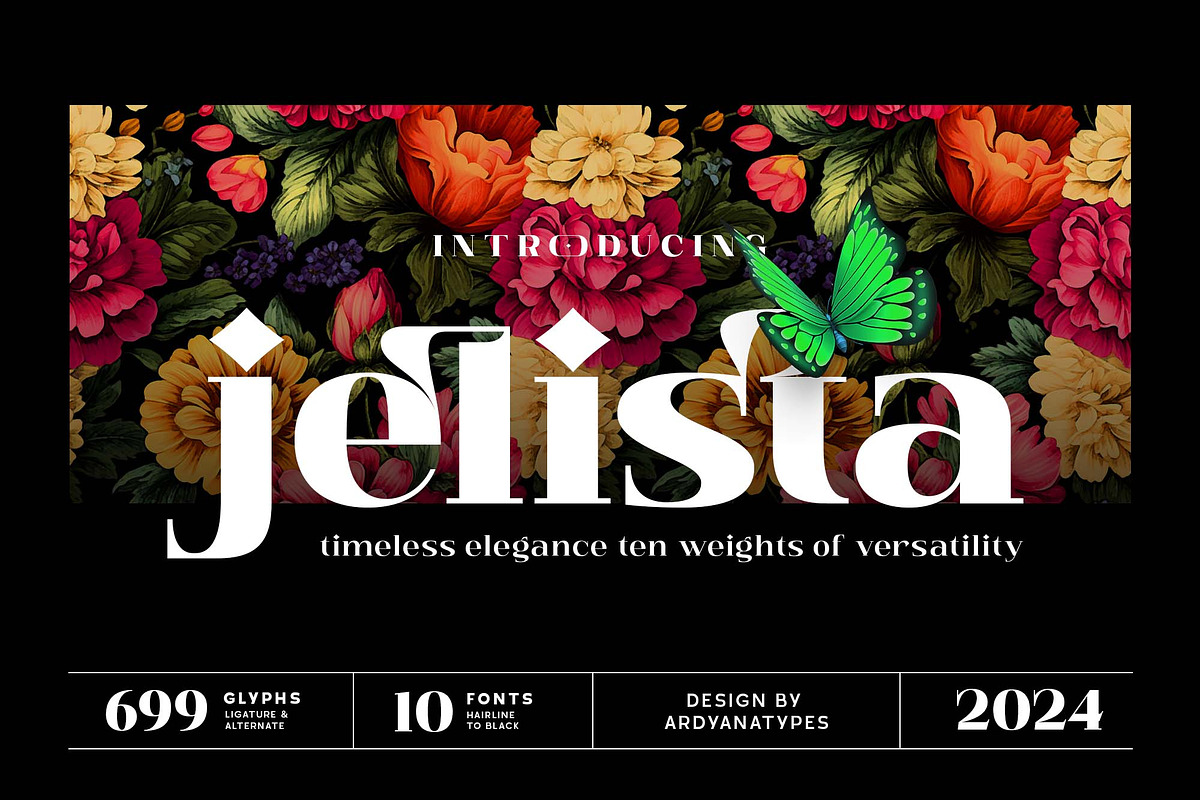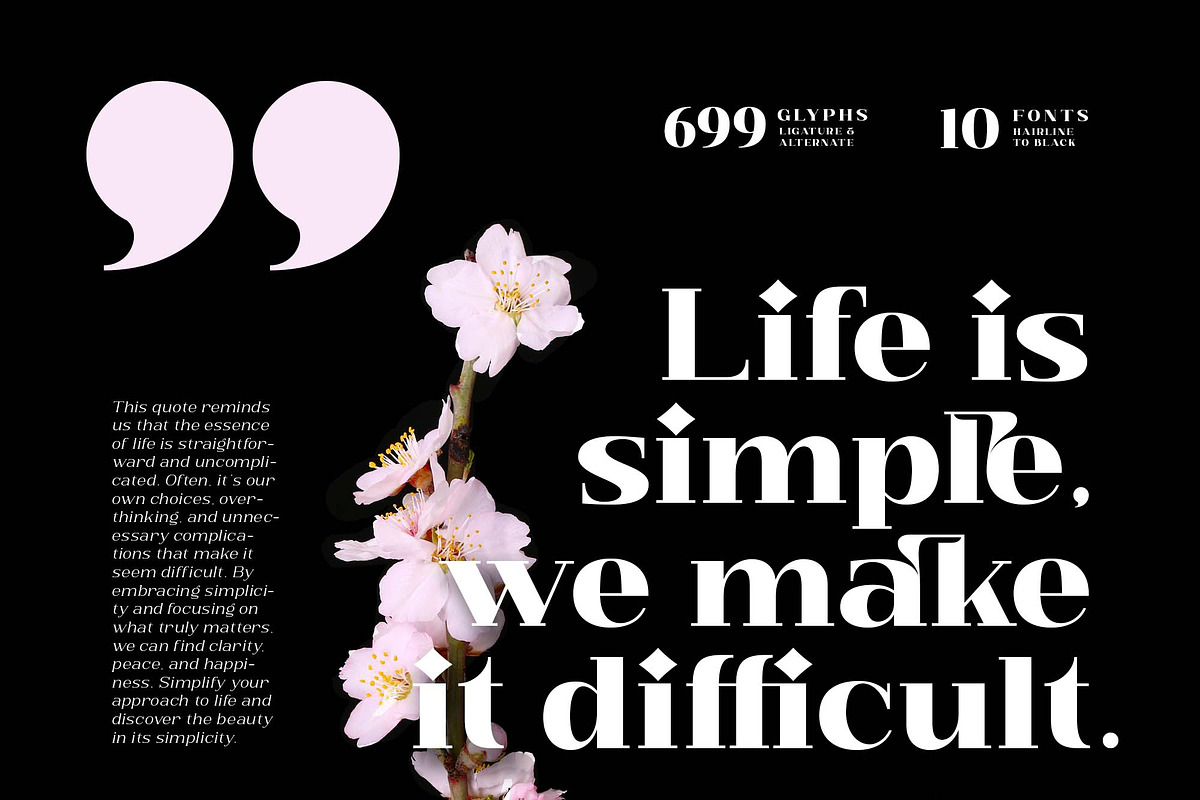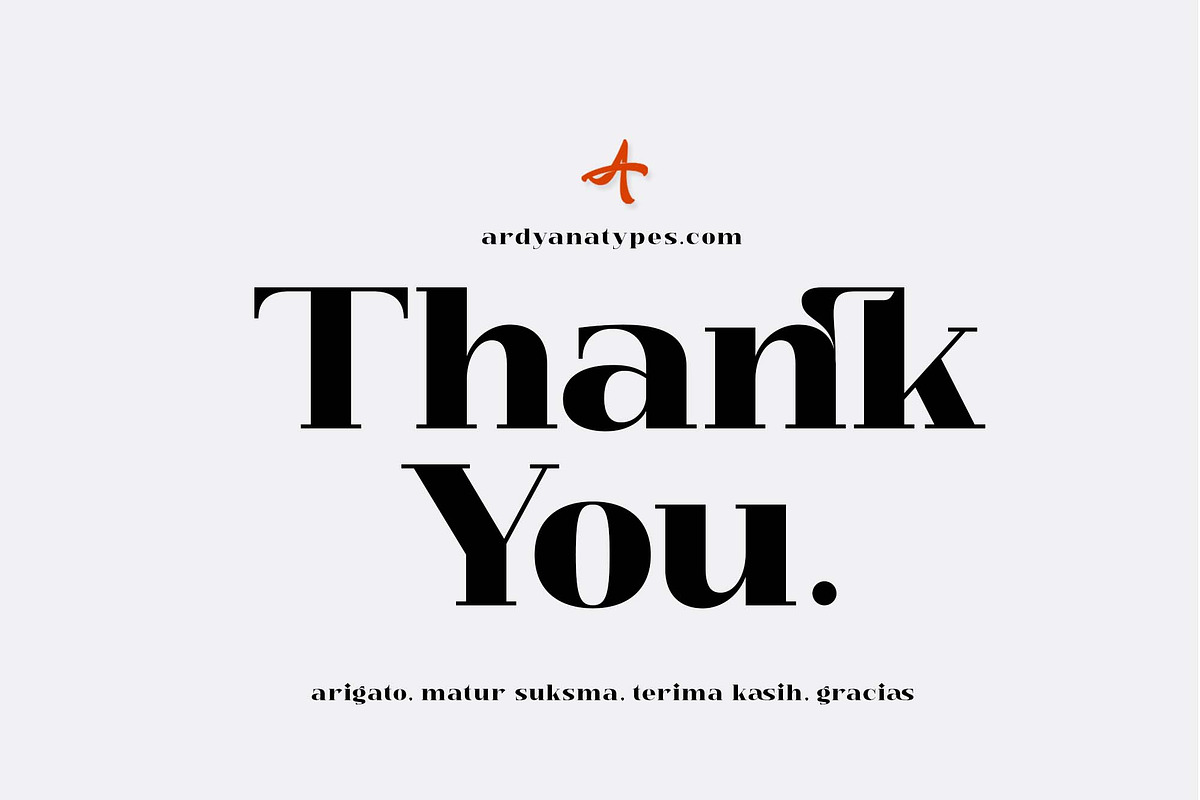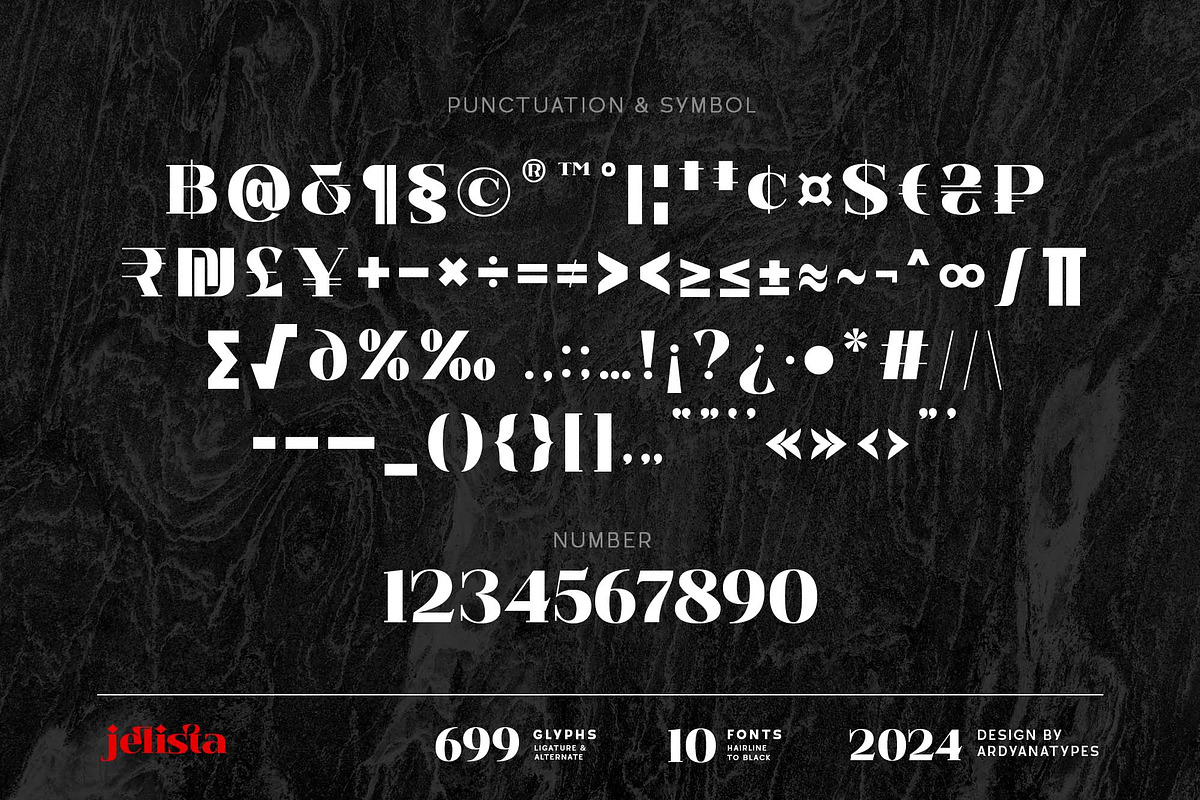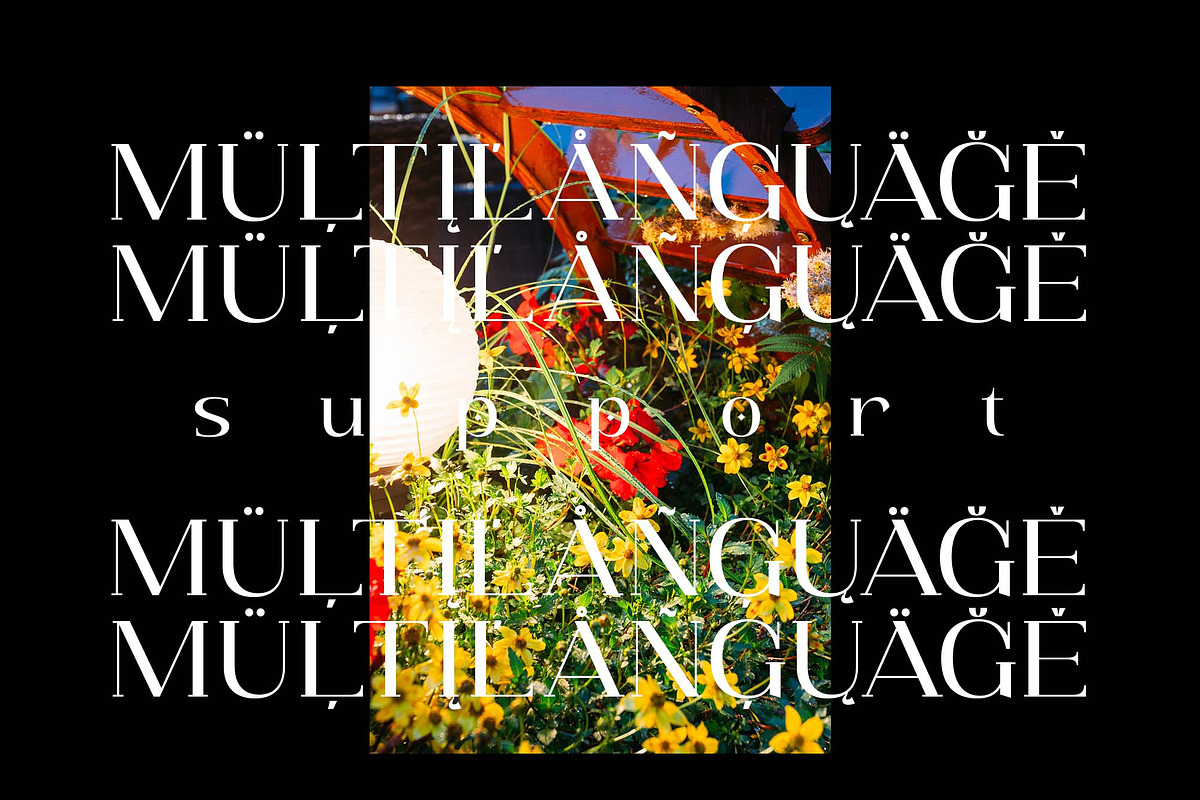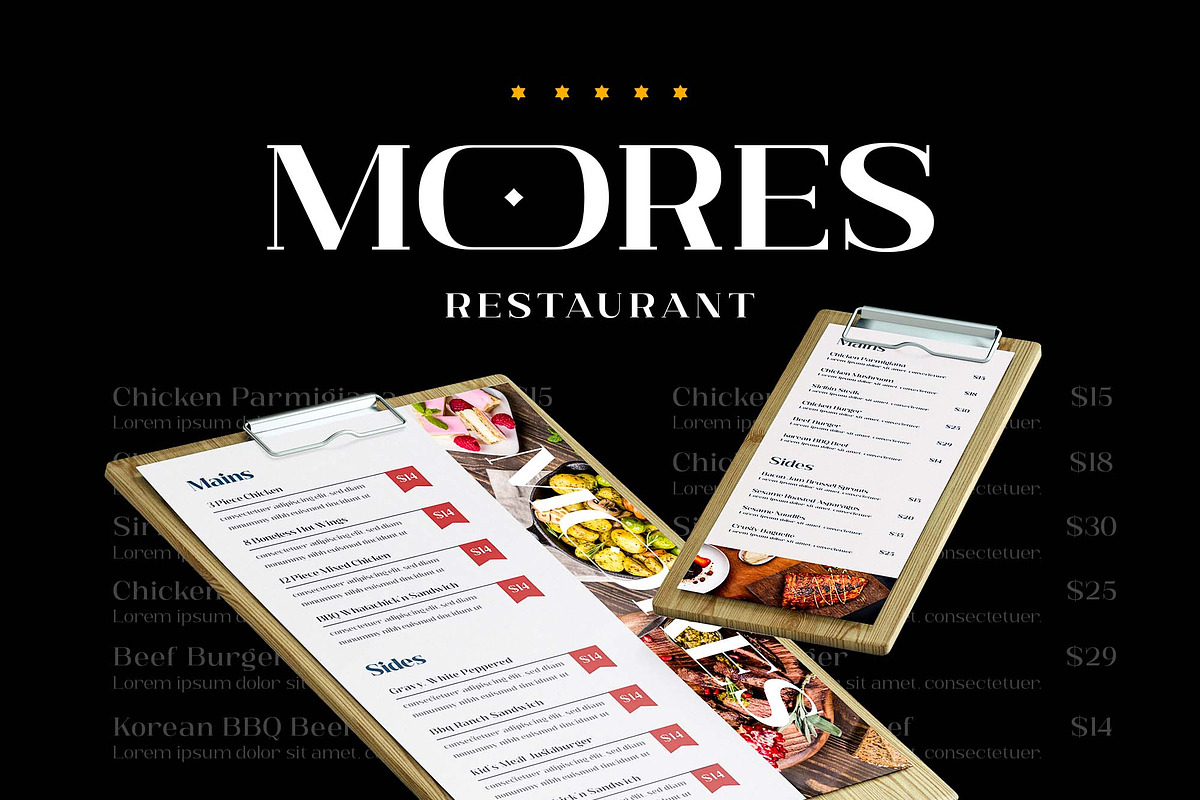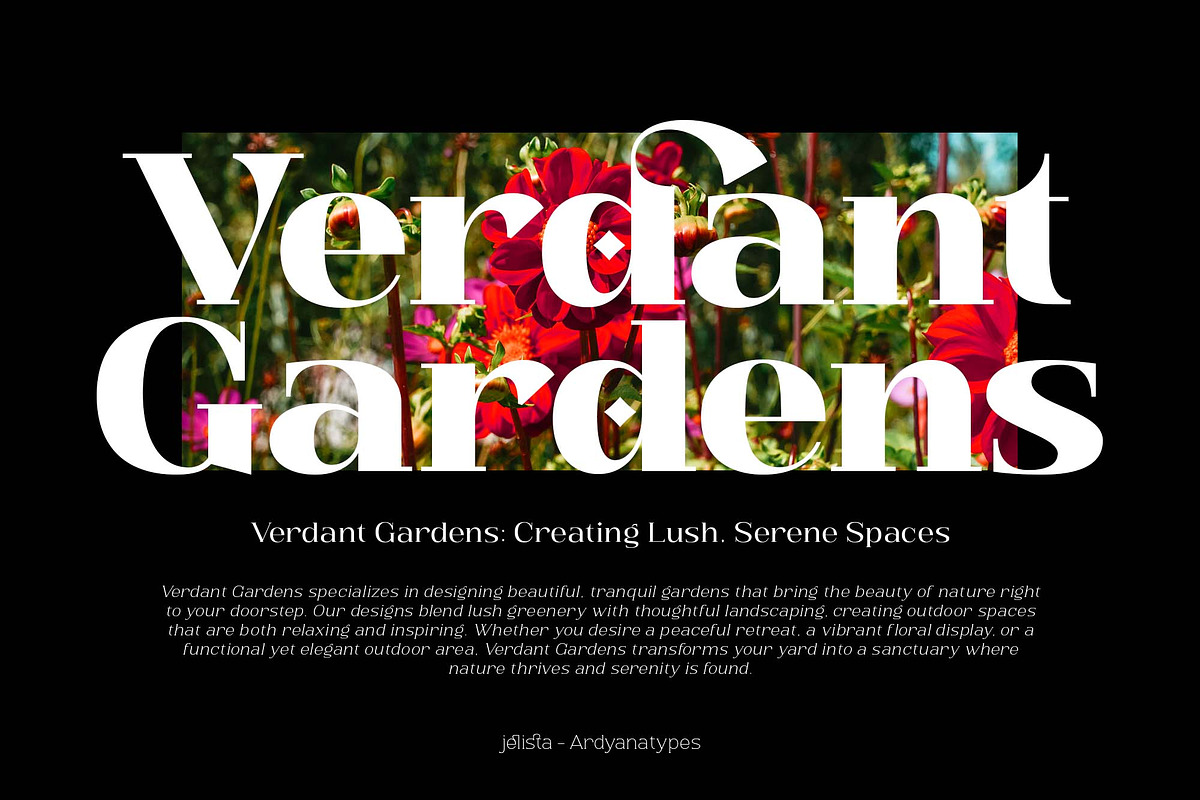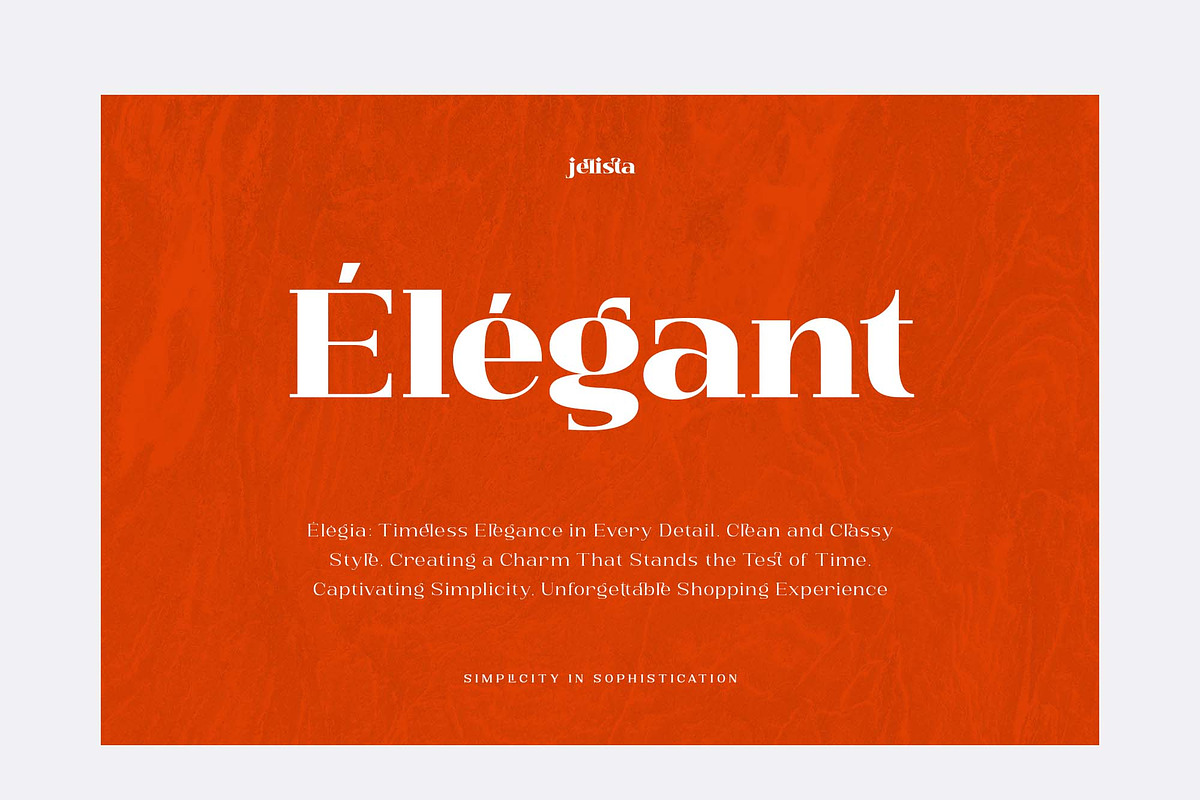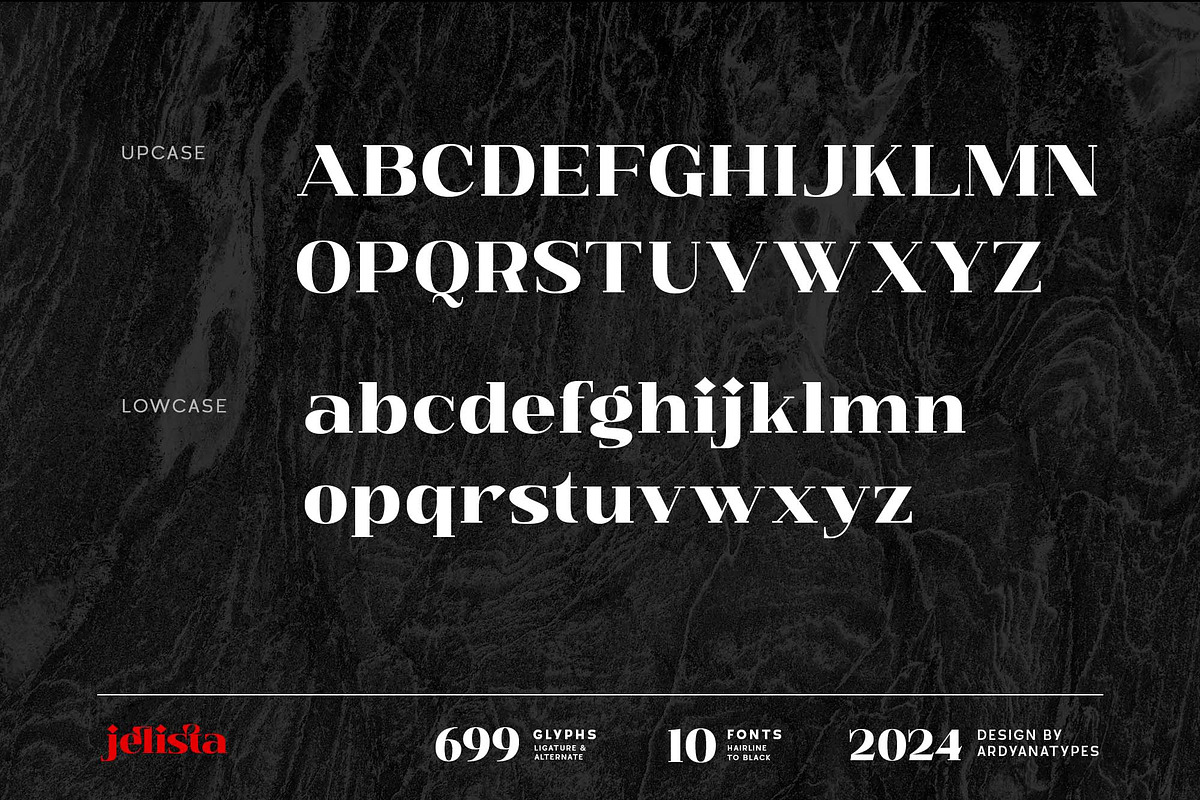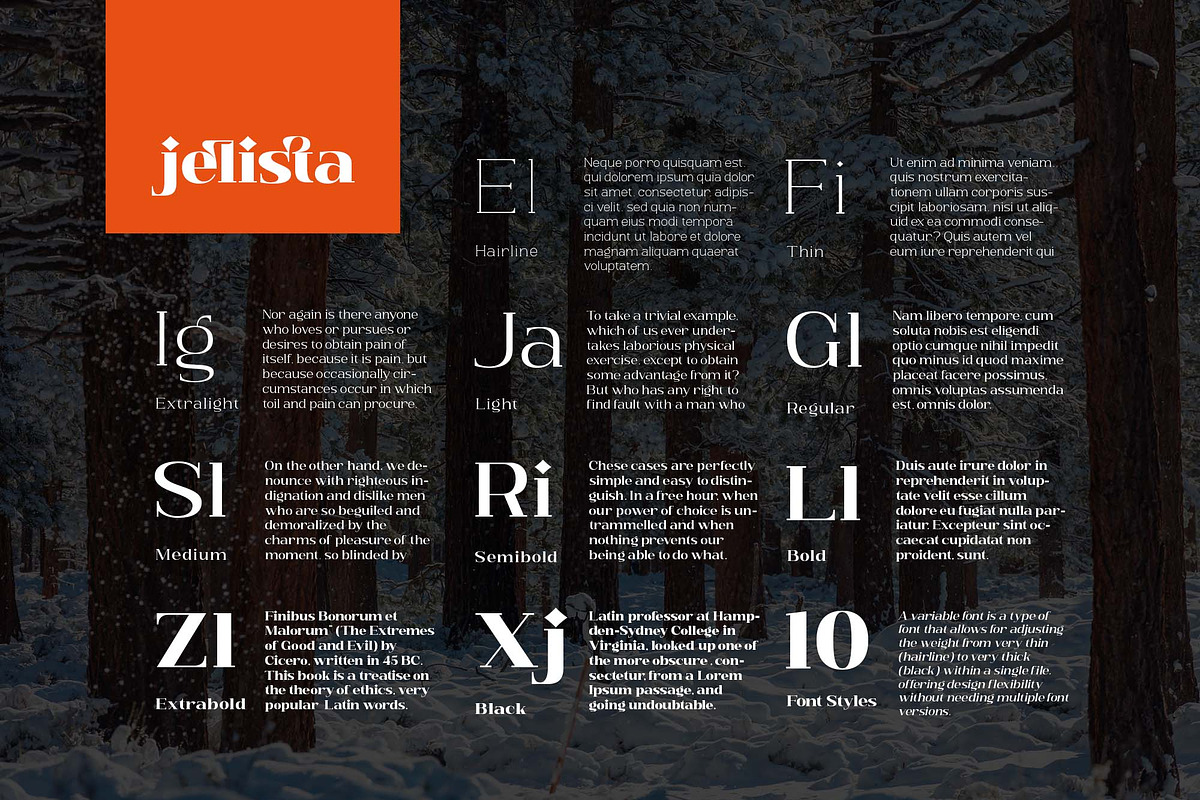
Jelista
Jelista Serif is a font that exudes a unique character and captivating visual strength. Inspired by the distinctiveness of classic letterforms with a modern touch, Jelista features bold yet elegant curves, creating a balance between power and grace.
This font is equipped with multilingual support for various languages, finely crafted ligatures to enhance cohesiveness, and alternates that allow creative flexibility in every use. Jelista is the perfect choice for branding, editorials, invitations, and design projects that require a unique and captivating touch.
With its strong yet classy character, Jelista brings a bold presence that stands out in every typographic composition, making it an unforgettable element in your design.
A – Z Character Set
a – z Characters set
Numerals & Punctuations
Ligatures & Alternates